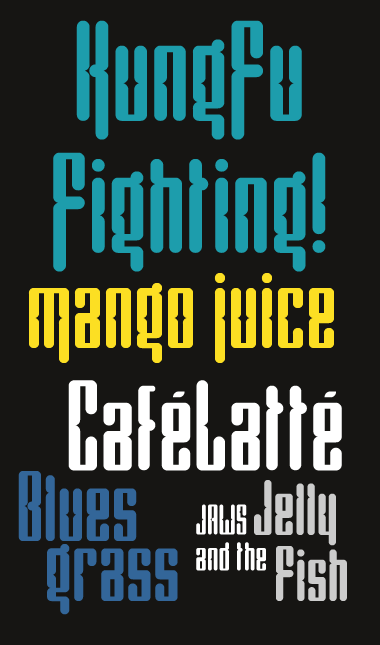
It start with a very simple design of K and R narrow and tall but especialy a rounded end for stem and detach at the connexion. ==================================== I declined the rest. At one point I add carving inside the of O just for fun and found this avenue interesting. So I play with it, even with unusual glyphs like Iijl ==================================== Add some long alternate glyph for more fancy short word or headline ==================================== a bit unhappy with Vv any crit are very welcome
Absolutely love this, it's totally usable, and has it's own very unique look, with cool little indents that really set it off. 10/10
Very nice, clear and and consistent. I could only repeat djnippa's words. 10/10
I'm to much into this font, I have no distance to be critic, so I can't see for now weakess or inconsistant glyphs, be welcome to point me anything wrong
I would try adding the dimple to the lower half of the S and to both halves of the s.
S and Z I did it on purpose to omit the dimple in the lower half, I found it was too many fancy wave, in real words.
But it's worth to try and look at it again now that my set is completed.
Same for s and z, i did'nt add at all dimples in
I just made the modification so you'll be able to juge by yourself via the "input text". Also, I'll try to push a comparaison pic, when possible.
this is definitely kick-ass. and so is the sample :)
Beautiful font, I really like it. (I am of those who remember the songs of KC & The Sunshine Band too).
Nice one. The clean, funky style reminds me of afrojet's work.
@geneus1: Afrojet works... thank you it's a cool comment, but it's incountious from me for sure.
I spend a lot of time watching fonts from Pro foundries, independant designer, graphic designer, advertiser, hand painter and even kids and normal people who draw "Garage sale" on a cardboard ;)
So at some moment I think I'm original with a font... but can be influence by many others work
Humbly! thank you very much. I had fun to build it, and I'm still thinking I can add more alternatives glyphs. Also, thanks for everyone's comments, I realy appreciate it.
Rad font. It's perfect, there's nothing in that font to critize. I'm surely paralyzed by the smooth surface, little dents, and tall letters. 10/10
It look really unique & perfect... Loved it a lot :D